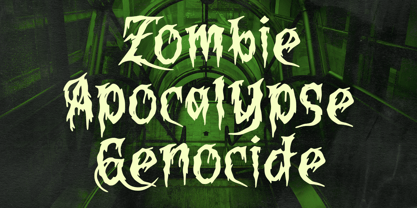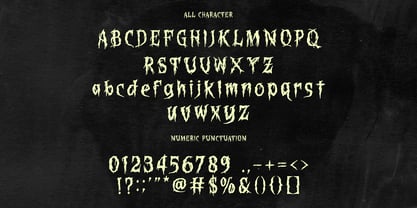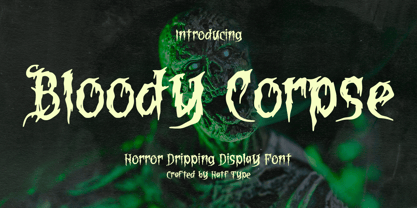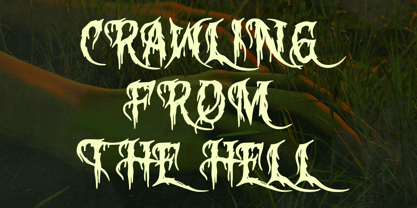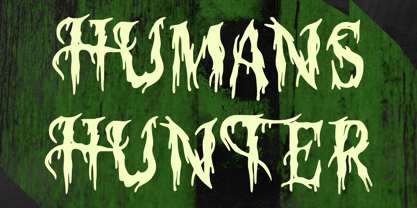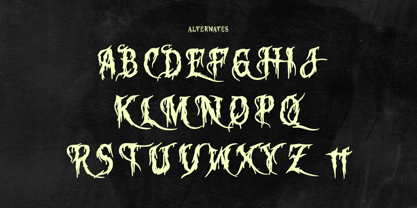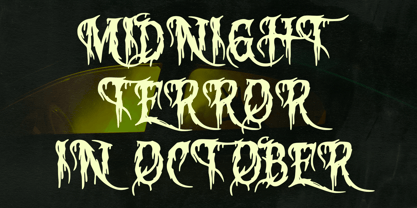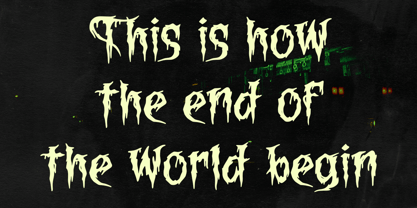
Bloody Corpse
by Hatftype
The Bloody Corpse Font Family was designed by Asep Rendi and published by Hatftype. Bloody Corpse contains 1 styles. More about this family
Bloody Corpse is a striking horror display font that features a dramatic dripping effect, evoking fresh blood cascading from each letter. This font is meticulously crafted to establish a tense and chilling atmosphere, making it ideal for horror movie poster titles, Halloween-themed designs, survival games, and any creative project that demands a bold touch of fright and drama. With its thick lines and pronounced letterforms, Bloody Corpse captures and conveys a sense of terror instantly, ensuring it grabs your audience's attention and piques their interest. Perfect for branding that aims to shock or intrigue, this font stands out in any context requiring a compelling and eerie aesthetic.
Designers: Asep Rendi
Foundry: Hatftype